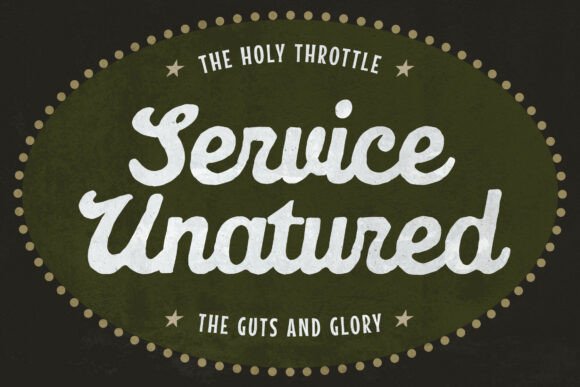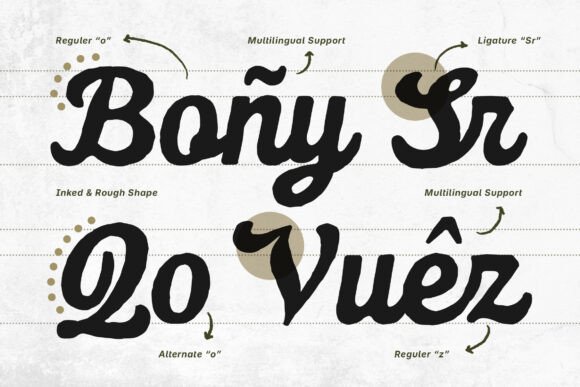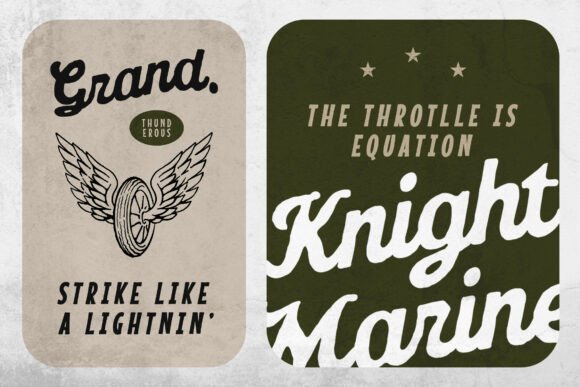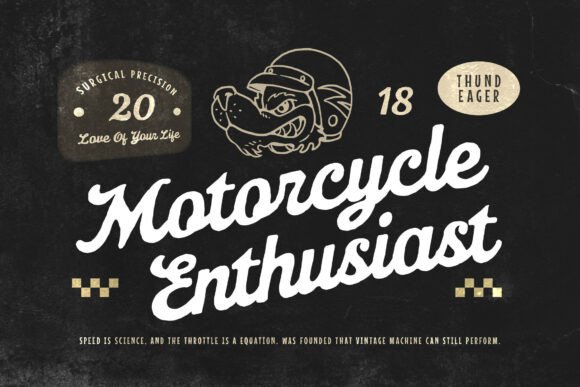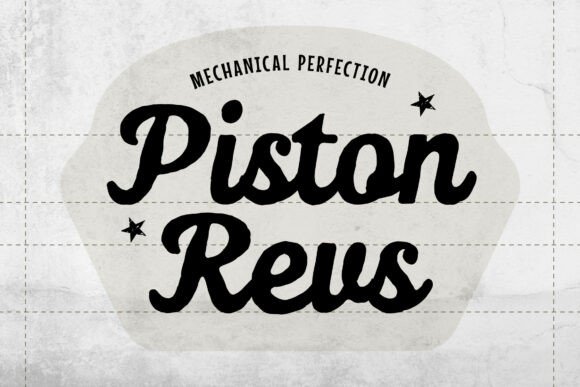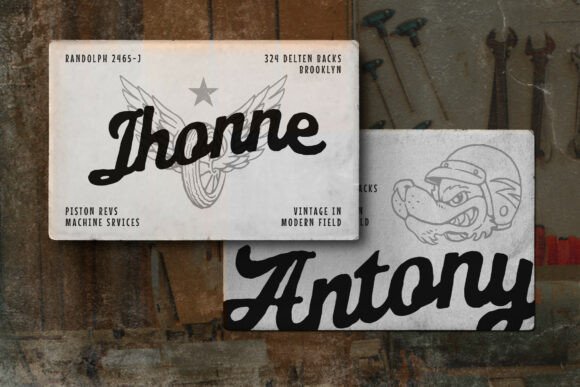
Astera Mototype Font: Unleash the Power of Retro Style in Your Designs
Are you looking for a font that can add a touch of nostalgia and personality to your designs? Look no further than Astera Mototype, a rough vintage hand-drawn script font that’s perfect for creating bold, eye-catching logos, signage, and branding materials. In this article, we’ll take a closer look at the features and benefits of Astera Mototype, and explore how you can use it to drive your designs with retro attitude.
What is Astera Mototype?
Astera Mototype is a unique and authentic script font that’s inspired by the classic typography of the past. With its aged textures, flowing script strokes, and handcrafted details, this font delivers a bold nostalgic look that’s full of personality and character. Whether you’re designing a logo for a car club, creating signage for a garage, or developing branding materials for a Western-inspired business, Astera Mototype is the perfect choice.
Key Features of Astera Mototype
So what sets Astera Mototype apart from other fonts? Here are some of its key features:
- Rough vintage texture: Astera Mototype has a unique, aged texture that gives it a worn, retro look.
- Hand-drawn script strokes: The font features flowing script strokes that are reminiscent of classic hand-drawn typography.
- Handcrafted details: Every letterform has been carefully crafted to add a touch of personality and authenticity to your designs.
- Bold and eye-catching: Astera Mototype is a bold font that’s designed to grab attention and make a statement.
Use Cases for Astera Mototype
Astera Mototype is a versatile font that can be used in a wide range of design applications. Here are some ideas to get you started:
- Automotive logos: Create bold, eye-catching logos for car clubs, racing teams, or automotive businesses.
- Car club merchandise: Design t-shirts, hats, and other merchandise for car clubs and enthusiasts.
- Garage signage: Create eye-catching signage for garages, repair shops, and other automotive businesses.
- Retro badges: Design retro-style badges for businesses, events, or organizations.
- Western-inspired branding: Use Astera Mototype to create branding materials for Western-inspired businesses, such as cowboy-themed restaurants or outfitters.
- Custom lettering: Use Astera Mototype as a starting point for custom lettering projects, such as quotes, posters, or signs.
- Posters and flyers: Create bold, eye-catching posters and flyers for events, promotions, or businesses.
- Classic product packaging: Use Astera Mototype to create vintage-inspired packaging for products, such as food, beverages, or cosmetics.
Tips for Using Astera Mototype
Here are some tips for getting the most out of Astera Mototype:
- Use it boldly: Astera Mototype is a bold font, so don’t be afraid to use it in large sizes or in combination with other bold design elements.
- Experiment with colors: Try pairing Astera Mototype with bold, bright colors to create a truly eye-catching design.
- Add texture and grunge: Enhance the retro look of Astera Mototype by adding texture, grunge, or other distressed effects.
- Mix and match: Combine Astera Mototype with other fonts or design elements to create a unique and interesting design.